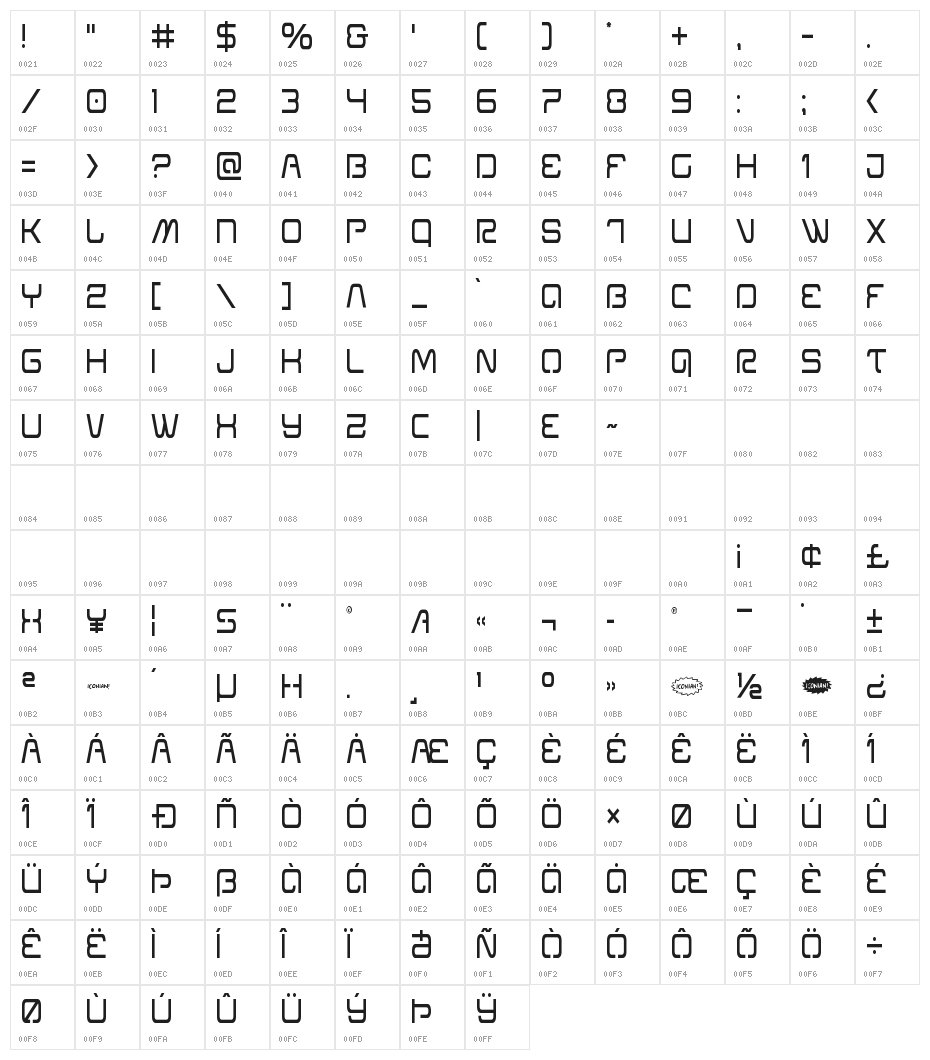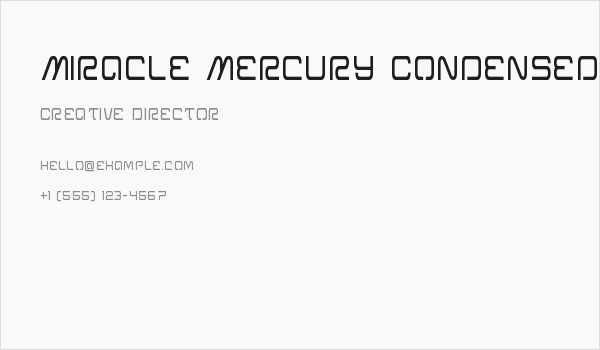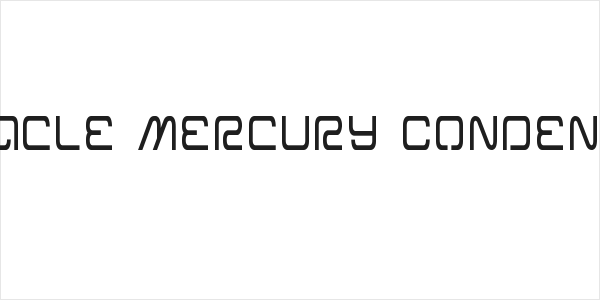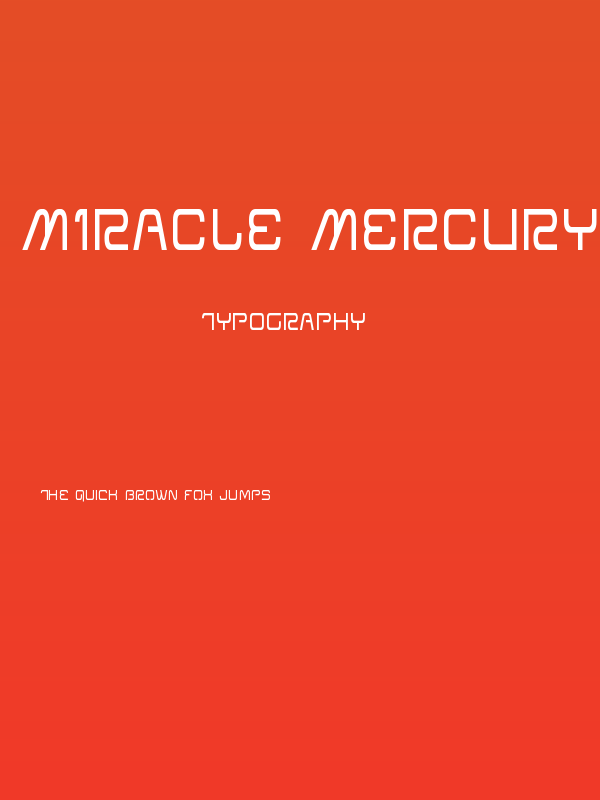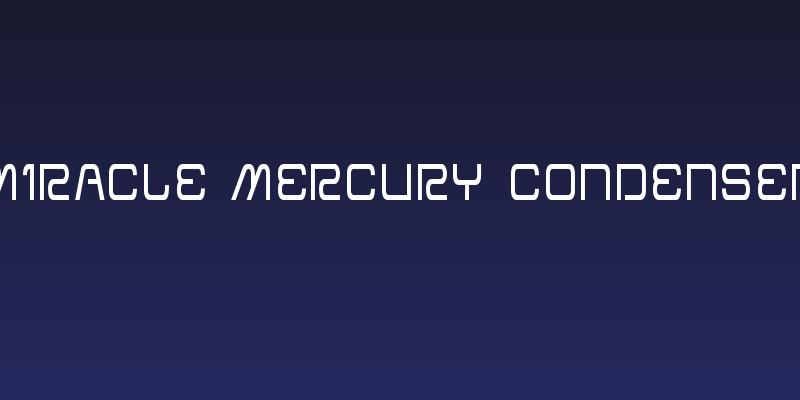
Miracle Mercury Condensed Font
Miracle Mercury Condensed Description
This font features a modern, geometric design with a condensed structure, giving it a sleek and futuristic appearance. The characters are uniform in height, with rounded edges and a consistent stroke width, creating a harmonious and balanced look. The uppercase and lowercase letters maintain a similar style, enhancing readability while preserving a unique aesthetic. The numerals and special characters are designed to match the overall style, ensuring a cohesive appearance across all text. This font is ideal for projects that require a contemporary and clean look.
| Proposed Projects | Ideal for technology branding, modern advertising, and futuristic design projects. |